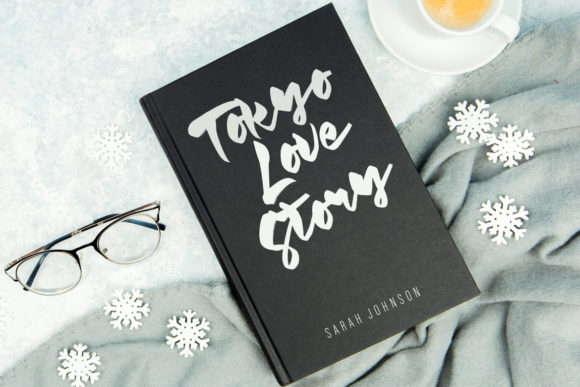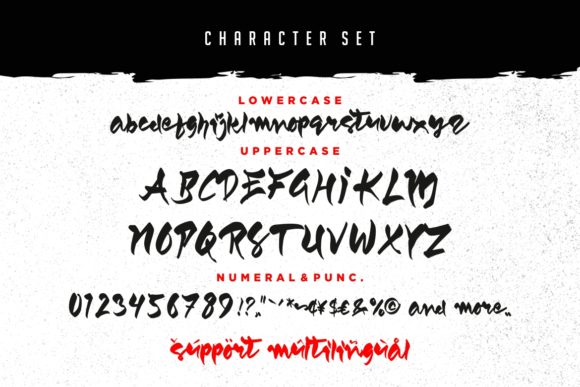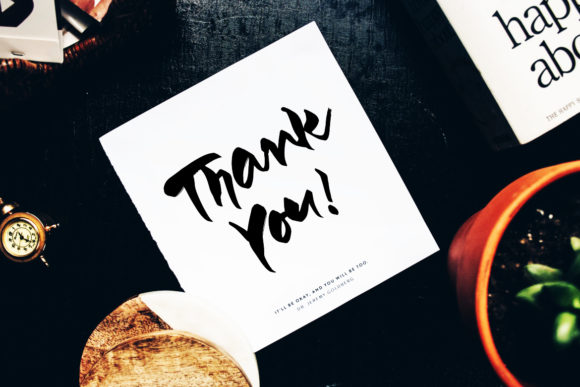
Introduction to Santoriu Font
Have you ever stared at a blank canvas, eager to bring your creative vision to life, only to be halted by the perfect font that eludes you? This is a familiar scenario for many designers. But what if I told you that there’s a game-changing font that can elevate your design project and leave a lasting impression? Enter the Santoriu Font, a high-quality, versatile, and modern design resource that’s about to take the world of typography by storm.
With its sleek, authentic, and fresh aesthetic, the Santoriu Font is poised to revolutionize the way you approach design. Whether you’re working on a creative project that requires a touch of sophistication or a bold, eye-catching statement, this font is sure to deliver. And the best part? It’s available for a free download, making it an accessible and valuable resource for designers of all levels.
Key Features of Santoriu Font
- Comes in a single weight, making it easy to use in a variety of design contexts.
- Designed to be highly legible, making it an excellent choice for body text and headings in creative projects.
Honest Review: Santoriu Font
I recently stumbled upon the Santoriu Font while searching for a high-quality design resource to elevate my creative project. I was thrilled to discover that it’s available for free download, making it an excellent addition to any designer’s toolkit.
One of the standout features of the Santoriu Font is its versatility. It works well in a variety of contexts, from digital designs to print materials. ✨ The font’s sleek and modern design makes it an excellent choice for any project that requires a touch of sophistication.
However, I did encounter some limitations while using the Santoriu Font. ⚠️ The font is only available in a limited range of weights, which can make it difficult to achieve the perfect balance of styles in some designs.
Overall, I’m impressed with the Santoriu Font and would highly recommend it to designers looking for a high-quality design resource. With its versatility and free download option, it’s an excellent addition to any design toolkit.
Santoriu Font
The Santoriu Font is a free download that can be used as a valuable design resource for any creative project. Its high-quality design makes it perfect for adding a touch of elegance to your work.
To get the most out of the Santoriu Font, use it with a transparent background to create a clean and minimalist look. You can also pair it with other high-quality fonts to create a unique and eye-catching design.
The Santoriu Font is perfect for use in logos, brochures, business cards, and other marketing materials. Its elegant design makes it ideal for use in creative projects that require a touch of sophistication and style.